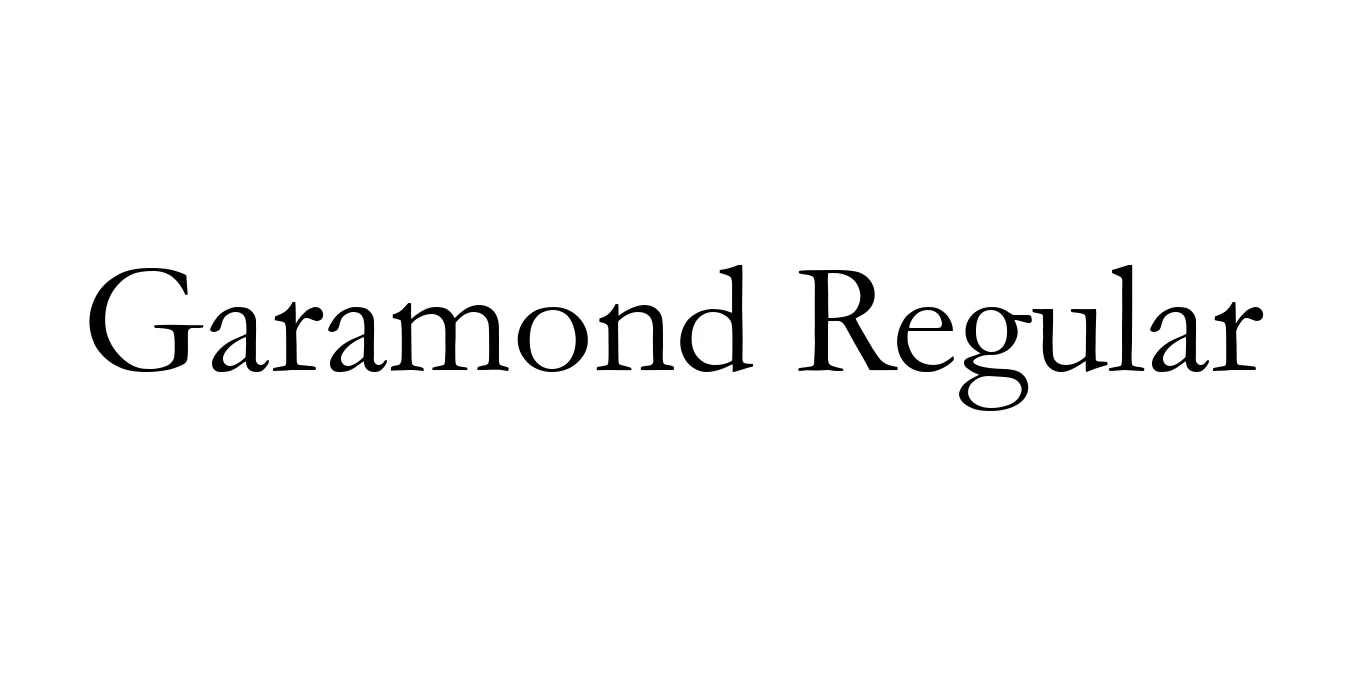
Garamond Regular
Designed by Claude Garamond
Garamond refers to a family of many serif typefaces named after the 16th-century French engraver Claude Garamond. These typefaces are categorized as Old-style serif designs, which are celebrated for their elegant, fluid letterforms and moderate contrast between thick and thin strokes. They represent one of the most influential and enduring styles in the history of typography, originating from the Renaissance period of printing.
Modern digital versions, such as Adobe Garamond and the open-source EB Garamond, are widely used for book publishing and long-form body text. The typeface is highly regarded for its exceptional readability and classic aesthetic, making it a staple in both traditional print media and sophisticated digital design projects. Its organic structure and balanced proportions provide a professional and timeless feel to any composition.
Garamond Regular Best Uses
Exceptional legibility for long-form reading in novels and textbooks.
Perfect for luxury magazines, newspapers, and sophisticated journal layouts.
Provides a formal, authoritative, and traditional appearance.
Used by high-end heritage brands to convey a sense of history and timelessness.